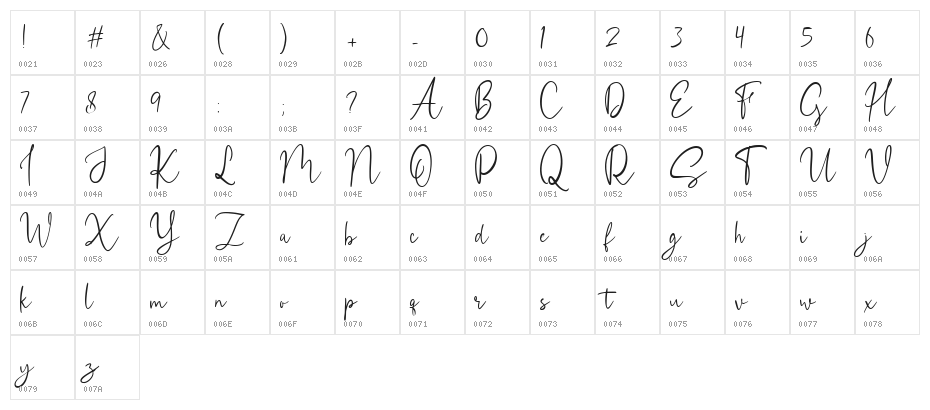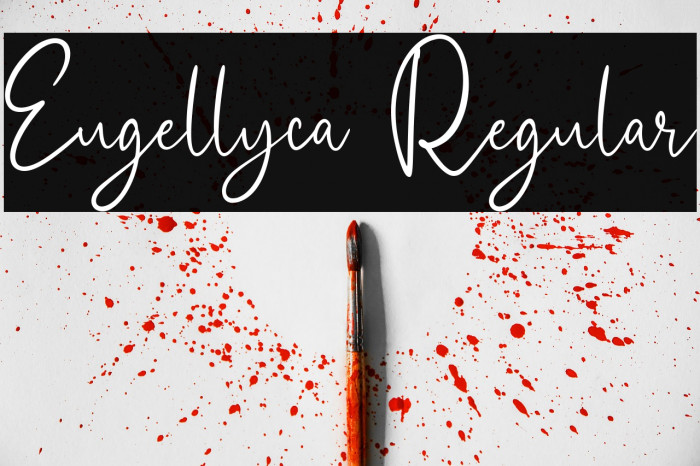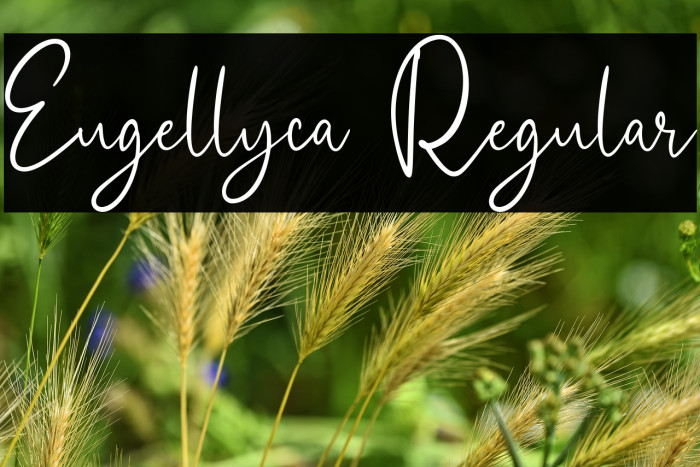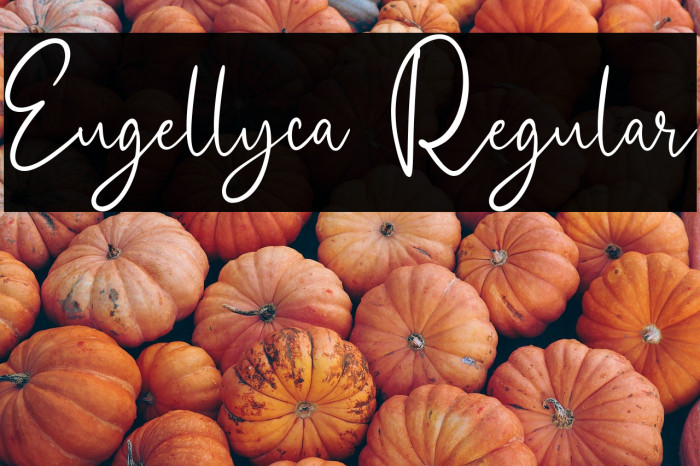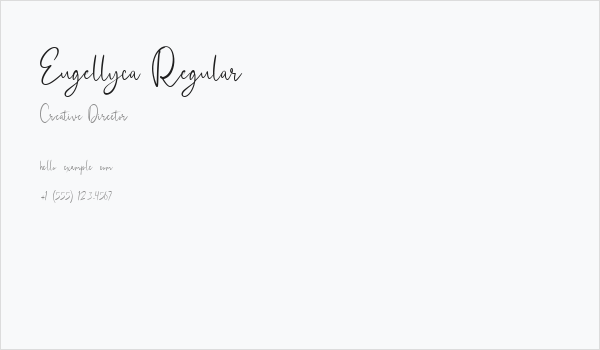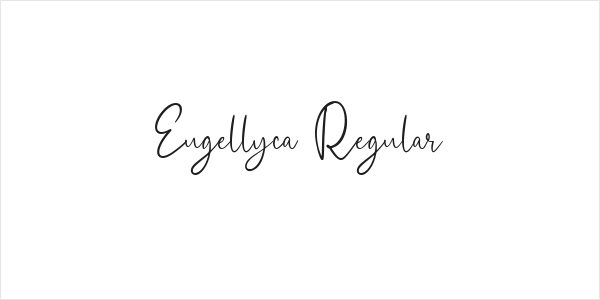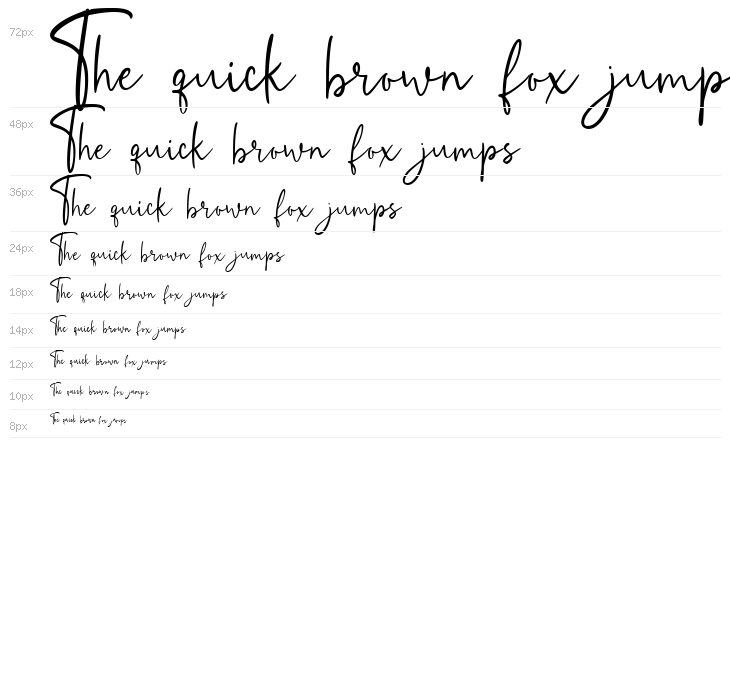
Eugellyca Regular Font
Eugellyca Regular Description
A flowing, cursive script font with a handwritten style, featuring smooth, connected letters and a casual elegance.
Fonts by Creatype Studio
| Proposed Projects | Invitations, greeting cards, personal branding. |